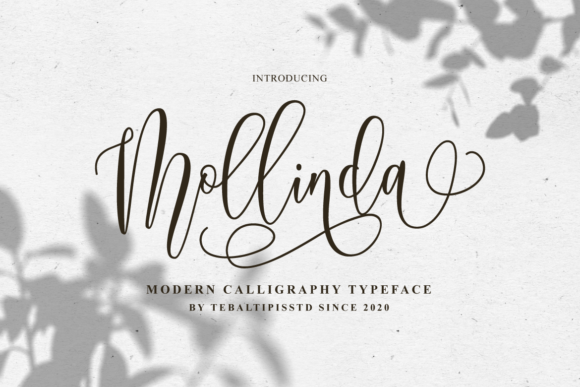
Introducing Mollinda Font, the epitome of charm and elegance in the world of fonts. With its captivating script style, Mollinda is the perfect choice for anyone seeking the best font for memes with a modern twist. Created by the talented Tebaltipis.std, this font will take your designs to new heights.
Mollinda Font is a delightful combination of classic calligraphy and contemporary design. Its varying baseline adds a touch of whimsy, while the smooth lines effortlessly guide the reader's eye. The result? A stunning visual experience that will captivate your audience.
But Mollinda Font doesn't stop at aesthetics alone. This font is PUA encoded, granting you easy access to a vast collection of incredible glyphs and swashes. Unlock your creativity and unleash the full potential of your designs with just a few clicks.
One of the standout features of Mollinda Font is its extensive range of alternate glyphs and ligatures. These special additions allow you to create unique and personalized typography that truly stands out. Say goodbye to generic fonts and hello to a world of endless possibilities.
Whether you're a seasoned designer or just starting out, Mollinda Font is a game-changer. Its versatility makes it suitable for a wide range of projects, from social media posts to branding materials. Let your imagination run wild as you explore the countless ways this font can elevate your creations.
But what truly sets Mollinda Font apart is its ability to evoke emotions. With every stroke and curve, it exudes a sense of warmth, sophistication, and creativity. It's more than just a font; it's a storyteller, weaving narratives through the power of typography.